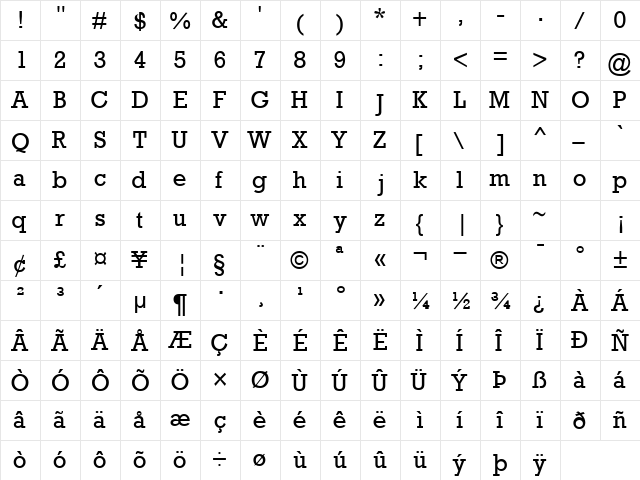
AstuteSSK Regular
Design Context for AstuteSSK Typeface
AstuteSSK takes a measured approach to typography — its balanced proportions and neutral character make it a reliable workhorse for both digital and print work.